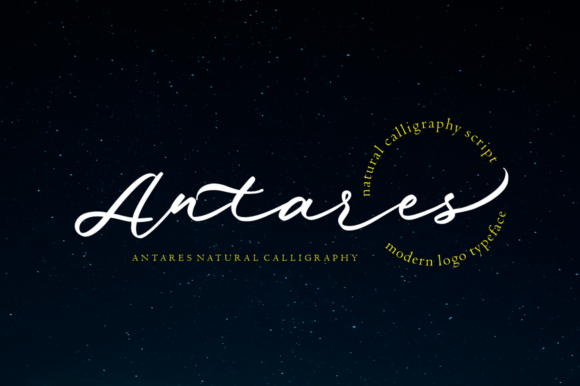
Step into a world where elegance and creativity intertwine, where the words you type become captivating works of art. Allow us to introduce you to Antares Font, a script font that's not just a font; it's an experience.
Crafted with the utmost care by gianstudio12, Antares is a handwritten font that dances across your designs, effortlessly adding a touch of magic to every word. Its carefully crafted characters evoke a sense of nostalgia, like a letter penned by a beloved friend, while its modern twist keeps it fresh and contemporary.
The versatility of Antares knows no bounds. Whether you're creating heartfelt greeting cards, eye-catching headlines, or anything in between, this versatile font will effortlessly elevate your designs, making them stand out from the crowd.
With Antares, you can effortlessly express your creativity and individuality. Its delicate strokes and graceful curves will captivate your audience, leaving them spellbound by the beauty of your words.
Take advantage of Antares's PUA encoding, which allows you to easily access all of its glyphs and swashes. Unleash your imagination and let the limitless possibilidades of this remarkable font inspire you to create designs that are truly unforgettable.
Don't settle for ordinary fonts, embrace the extraordinary with Antares Font. Transform your words into captivating masterpieces and let your designs shine with elegance and charm. Let Antares be your creative muse and watch as your designs come to life, captivating and enchanting your audience like never before.